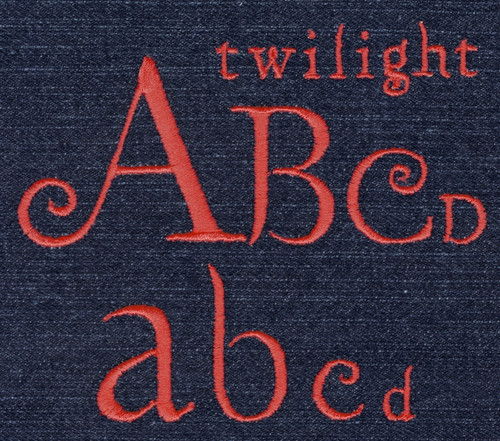
361 Twilight Satin Font
Twilight Satin Font comes in 0.5", 1", 1.5" and 2" heights based on the capital "A". All sizes are finished in Satin Stitching. Includes uppercase letters, lowercase letters, numbers and four punctuation marks. The characters in this set have very thin parts and points; to achieve the best stitch out, use medium to heavy weight non-stretch fabric, adequate stabilizer and reduce the upper thread tension.